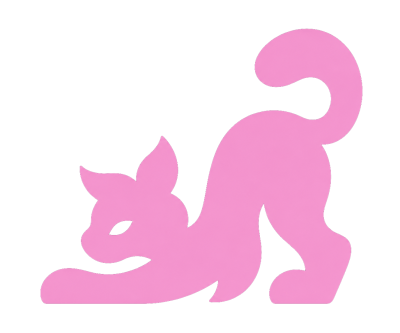
La Compagnie des Animaux
by Graphéine
The logomark's subtle integration of a medical cross within animal silhouettes is a clever solution, resolving the former 'clipart field trip' issue. Pairing this with Massilia, a humanist sans from Blaze Type, effectively balances playfulness with authority, addressing the brand's dual need for approachability and expertise. The typeface choice provides needed character; its distinct details avoid generic branding. The system's strength lies in integrating these elements to achieve a warm, professional tone, a strategy I'd consider for similar consumer-facing health brands.